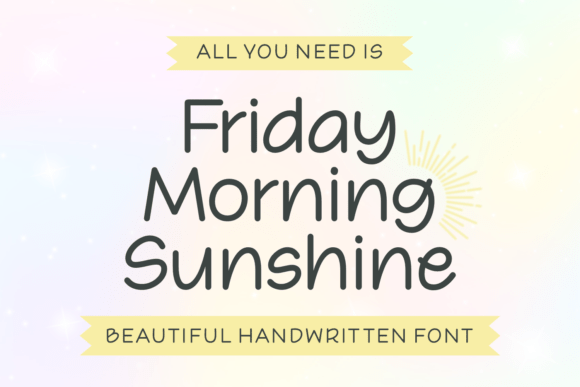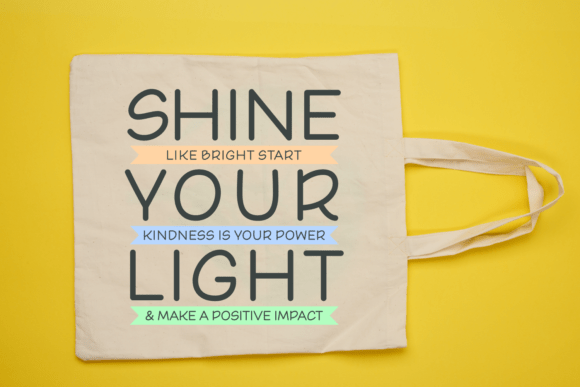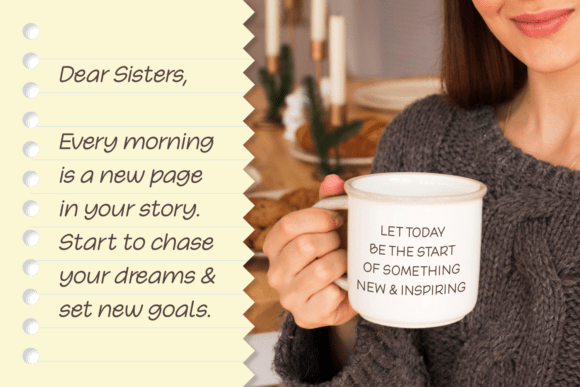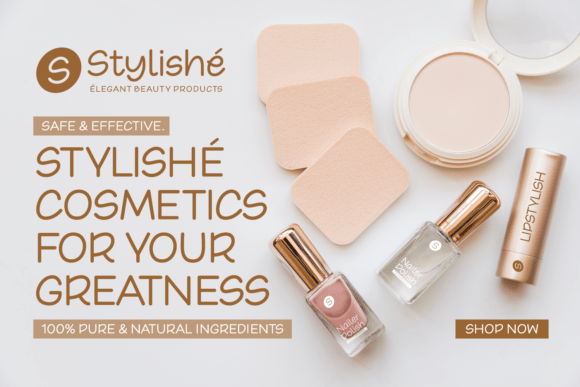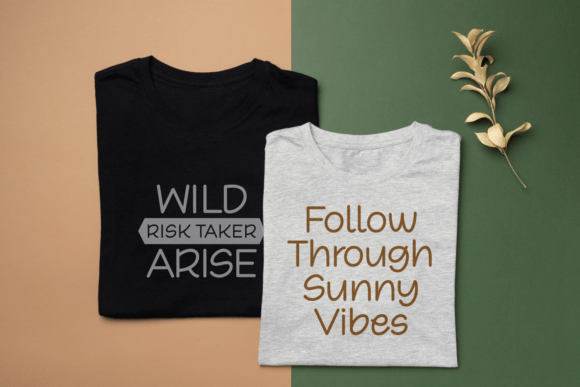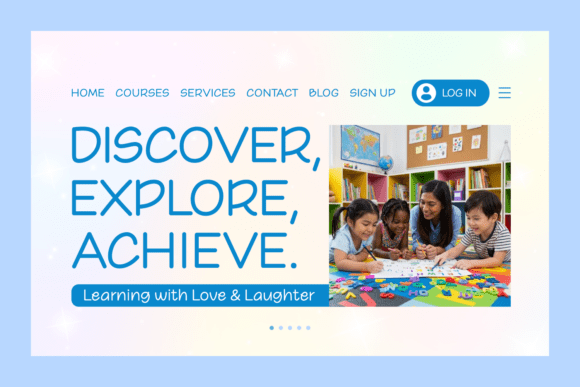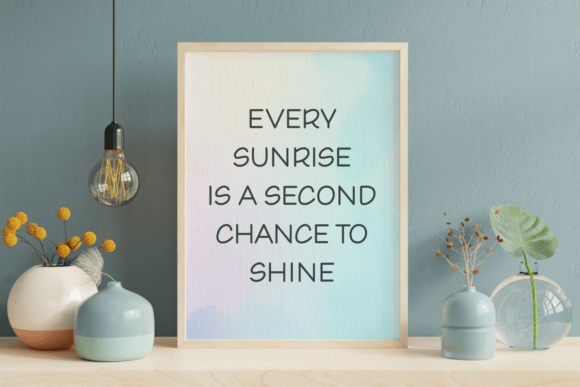
Starting Your Week Off Right with a Smile
There’s something special about waking up on a Friday morning, knowing the weekend is just around the corner. As a designer, you’ve probably had those moments where the creative juices start flowing, and you feel inspired to tackle a new project. You grab your favorite cup of coffee, sit down at your desk, and begin brainstorming ideas. It’s in these moments that the perfect font can make all the difference.
Enter Friday Morning Sunshine Font, a beautiful handwritten font that captures the warmth and casual elegance of a sunny morning. This typeface is designed to help you start your design project on a bright note, with its clean, monoline weight and soft, rounded terminals creating a friendly, upright posture that’s perfect for lifestyle branding and inspirational quotes.
With the Friday Morning Sunshine Font, you’ll be able to infuse your designs with a sense of approachable sincerity and handcrafted joy, making it an exceptional choice for designers looking to create memorable visual stories.
Friday Morning Sunshine Font Key Features
- Unique Characteristics: The Friday Morning Sunshine Font features a unique, hand-drawn design with a warm and optimistic tone, making it perfect for creating cheerful and uplifting designs.
- X-Height: The font has a moderate x-height, which allows for easy readability and balance between the uppercase and lowercase letters.
- Kerning: The font includes advanced kerning, which ensures that the spacing between letters is optimized for clear and visually appealing text.
Friday Morning Sunshine Font Review
Overall, I think the “Friday Morning Sunshine Font” is a cute and cheerful font that could work well for certain projects. ✨ The rounded edges and soft curves give it a friendly feel that’s perfect for greeting cards, children’s books, or other lighthearted materials. ✨ I also appreciate the varying weights and styles, which provide some flexibility for creating visually appealing designs.
However, I do have some reservations about the font’s limitations. ⚠️ Firstly, the font’s rounded edges and soft curves make it less suitable for formal or professional projects, as it may come across as too playful or immature. ⚠️ Additionally, the font’s lack of x-height uniformity can lead to some awkward line spacing, especially when using it for longer blocks of text.
Here are some specific points to consider:
- Works well for: Greeting cards, children’s books, social media graphics, and other lighthearted projects.
- Limited by: Formal or professional projects, projects requiring precise line spacing.
- Key features: Rounded edges, soft curves, varying weights and styles.
The Friday Morning Sunshine font is perfect for creating bright and cheerful designs, such as:
Blog posts and social media graphics
Branding and marketing materials
To get the most out of this font, use it in conjunction with bright and pastel colors to create a cohesive and eye-catching design.